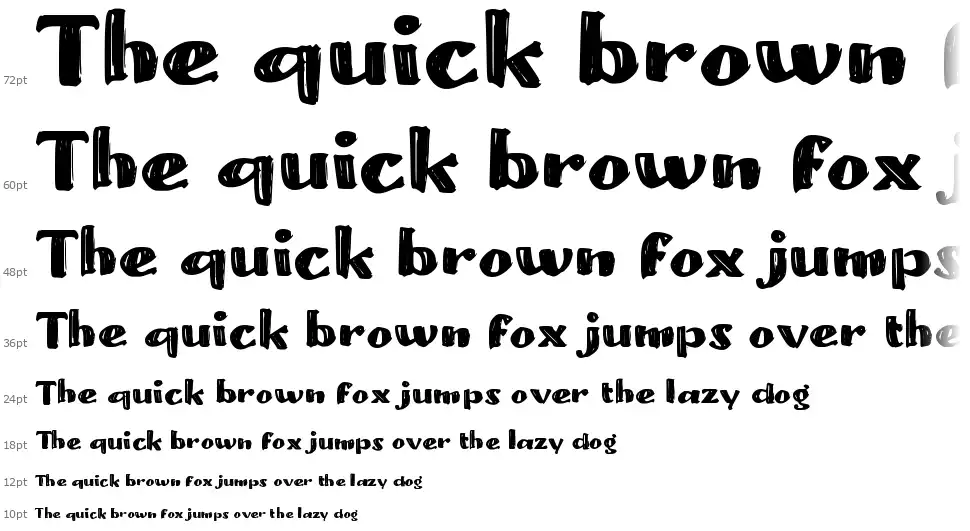
Caesar Salad Font . Download caesar dressing font · free for commercial use · caesar dressing is a 'markers' take on a greek alphabet. Designed by dathan boardman of open window. Customize your own preview on ffonts.net to make sure. The caesar salad font contains 98 beautifully designed characters. Download and install the caesar salad font for free from ffonts.net. This font has been downloaded 70+ times. The font is licensed under sil open font license. C caesar salad by wep. The font is free for both personel and commercial.
The font is licensed under sil open font license. Designed by dathan boardman of open window. The font is free for both personel and commercial. Download and install the caesar salad font for free from ffonts.net. Download caesar dressing font · free for commercial use · caesar dressing is a 'markers' take on a greek alphabet. C caesar salad by wep. This font has been downloaded 70+ times. Customize your own preview on ffonts.net to make sure. The caesar salad font contains 98 beautifully designed characters.
Caesar Salad Font Designed by dathan boardman of open window. The font is free for both personel and commercial. Customize your own preview on ffonts.net to make sure. C caesar salad by wep. The font is licensed under sil open font license. This font has been downloaded 70+ times. Download caesar dressing font · free for commercial use · caesar dressing is a 'markers' take on a greek alphabet. The caesar salad font contains 98 beautifully designed characters. Designed by dathan boardman of open window. Download and install the caesar salad font for free from ffonts.net.
Vegan Kale Caesar Salad (oilfree, nutfree) Caesar Salad Font The caesar salad font contains 98 beautifully designed characters. The font is free for both personel and commercial. This font has been downloaded 70+ times. Customize your own preview on ffonts.net to make sure. Download caesar dressing font · free for commercial use · caesar dressing is a 'markers' take on a greek alphabet. Download and install the caesar salad. Caesar Salad Font.
Caesar Salad Font Designed by dathan boardman of open window. The font is free for both personel and commercial. The caesar salad font contains 98 beautifully designed characters. The font is licensed under sil open font license. Customize your own preview on ffonts.net to make sure. Download caesar dressing font · free for commercial use · caesar dressing is a 'markers' take on. Caesar Salad Font.
Caesar Salad The Modern Proper Caesar Salad Font Designed by dathan boardman of open window. This font has been downloaded 70+ times. The caesar salad font contains 98 beautifully designed characters. Customize your own preview on ffonts.net to make sure. The font is free for both personel and commercial. C caesar salad by wep. Download caesar dressing font · free for commercial use · caesar dressing is a. Caesar Salad Font.
Salad Font Caesar Salad Font Designed by dathan boardman of open window. C caesar salad by wep. Download and install the caesar salad font for free from ffonts.net. The caesar salad font contains 98 beautifully designed characters. Download caesar dressing font · free for commercial use · caesar dressing is a 'markers' take on a greek alphabet. Customize your own preview on ffonts.net to make. Caesar Salad Font.
Classic Golden Steer Caesar Salad A Luxurious Twist on a Timeless Caesar Salad Font The font is licensed under sil open font license. The font is free for both personel and commercial. This font has been downloaded 70+ times. Download and install the caesar salad font for free from ffonts.net. C caesar salad by wep. The caesar salad font contains 98 beautifully designed characters. Customize your own preview on ffonts.net to make sure. Designed. Caesar Salad Font.
Salad Font Caesar Salad Font Customize your own preview on ffonts.net to make sure. The font is free for both personel and commercial. Download and install the caesar salad font for free from ffonts.net. The font is licensed under sil open font license. C caesar salad by wep. This font has been downloaded 70+ times. The caesar salad font contains 98 beautifully designed characters. Download. Caesar Salad Font.
Homemade Caesar Salad Shaken Together Caesar Salad Font The font is licensed under sil open font license. Customize your own preview on ffonts.net to make sure. This font has been downloaded 70+ times. Download and install the caesar salad font for free from ffonts.net. Designed by dathan boardman of open window. Download caesar dressing font · free for commercial use · caesar dressing is a 'markers' take on. Caesar Salad Font.
Caesar Salad Font Download and install the caesar salad font for free from ffonts.net. Customize your own preview on ffonts.net to make sure. The font is licensed under sil open font license. The caesar salad font contains 98 beautifully designed characters. Download caesar dressing font · free for commercial use · caesar dressing is a 'markers' take on a greek alphabet. C caesar. Caesar Salad Font.
Salad free font Caesar Salad Font C caesar salad by wep. Customize your own preview on ffonts.net to make sure. Download and install the caesar salad font for free from ffonts.net. The font is free for both personel and commercial. The font is licensed under sil open font license. This font has been downloaded 70+ times. Designed by dathan boardman of open window. The caesar salad. Caesar Salad Font.